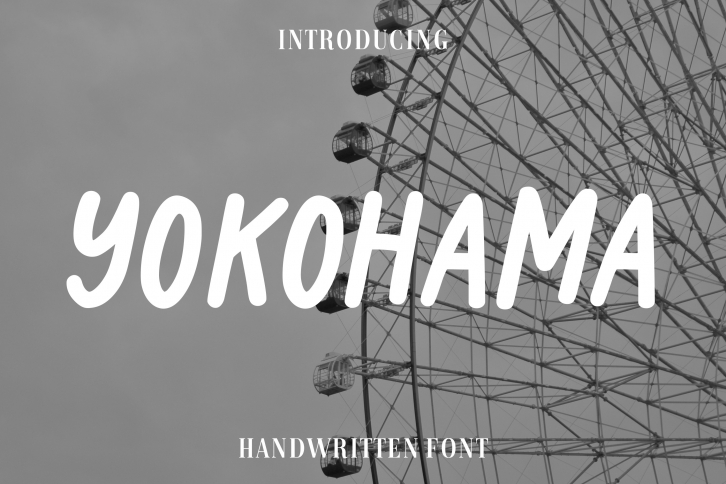
Yokohama is a simple, clean and adaptable handwritten font. Add it confidently to your favorite creations and let yourself be amazed by the outcome generated.